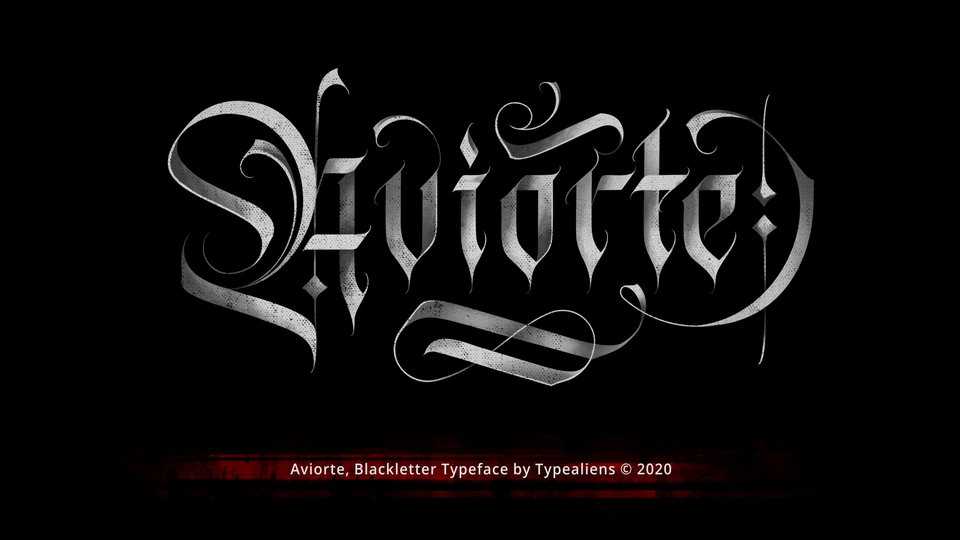
Download Aviorte font, an elegant, clean, formal and beautiful blackletter typeface. Aviorte is suitable as a title, headline, or logotype design, badge design, t-shirt design or branding etc.
Designer: Typealiens